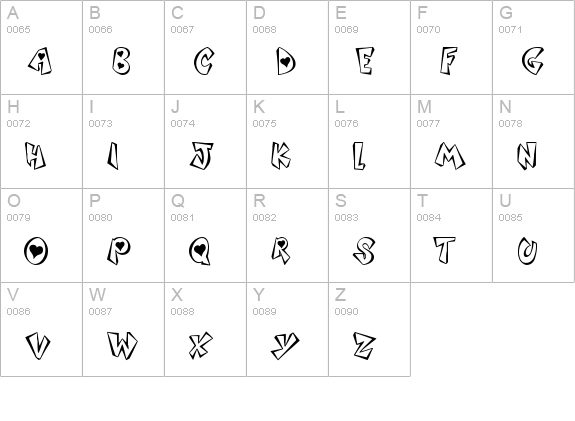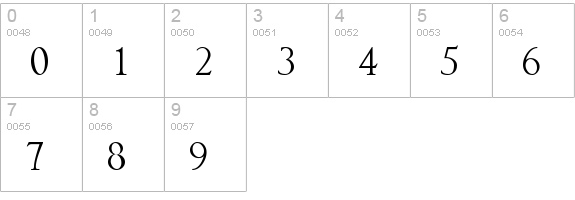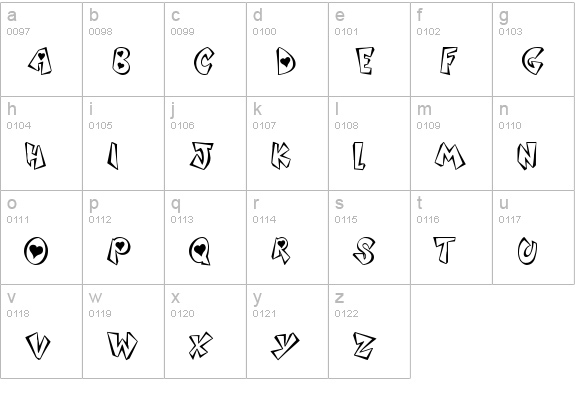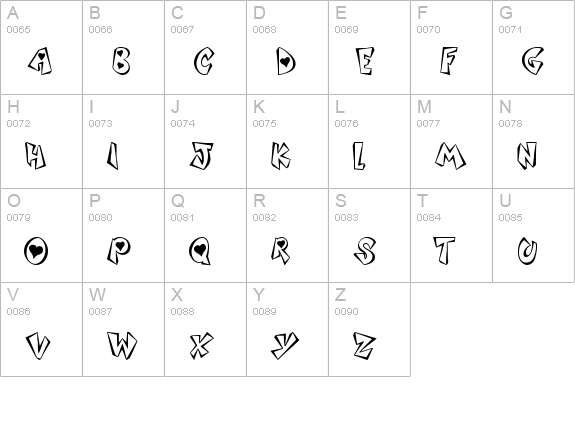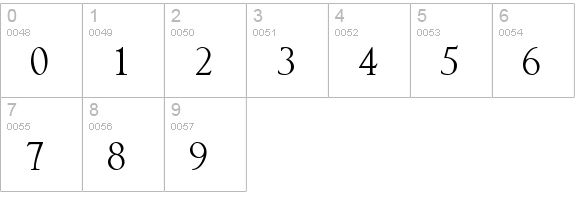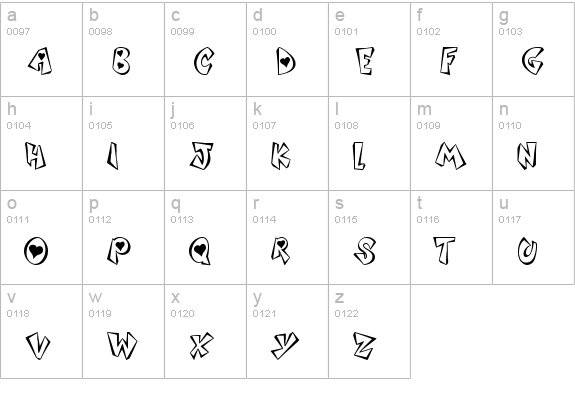
Heart Attack Font Details
Introducing Heart Attack, an electrifying and captivating font that is sure to make your designs pulse with energy. With its bold and edgy letterforms, Heart Attack commands attention and leaves a lasting impression. Designed with a hint of rebelliousness and a dash of modernity, this font is perfect for projects that require a touch of attitude and excitement. Heart Attack is not just visually stunning; it also offers versatility and functionality. Whether you're working on a poster, logo, headline, or any other creative endeavor, this font effortlessly adapts to various design needs. Its clean lines and sharp angles give it a contemporary feel, while its unique character adds a touch of personality to any composition. One of the best things about Heart Attack is that it is completely free. Yes, you read that right! You can download this font without breaking the bank. Visit FontsMarket.com to easily and conveniently access Heart Attack and add it to your font library. Whether you're a professional designer or a hobbyist, this free font is a must-have addition to your collection. So why wait? Experience the exhilaration and impact of Heart Attack font in your next project. Download it for free at FontsMarket.com and let your designs beat with a heart-pounding intensity. Get ready to leave a lasting impression with this striking and freely available font.